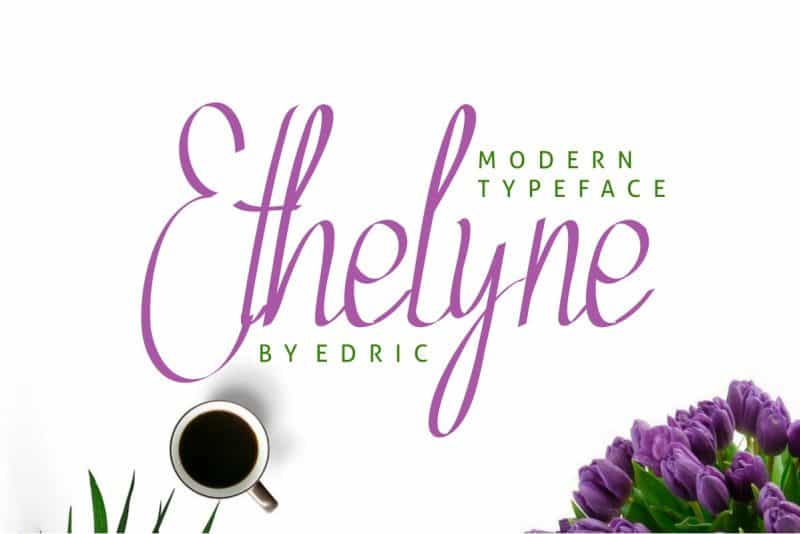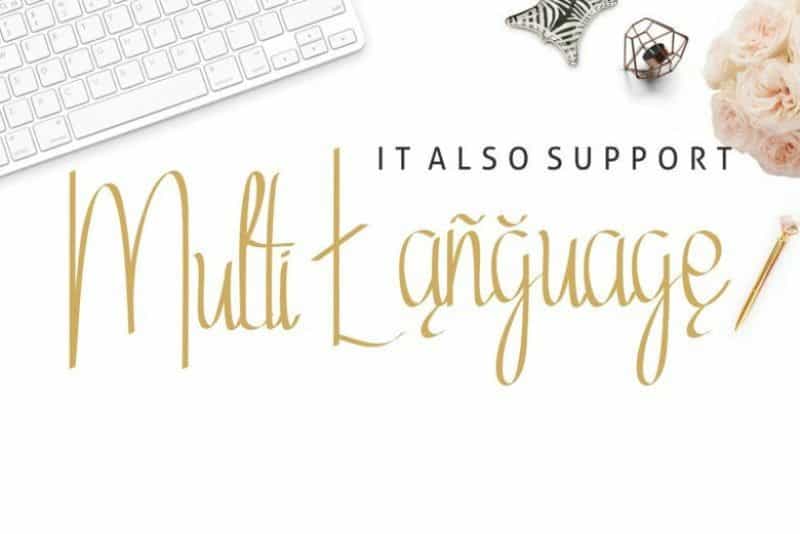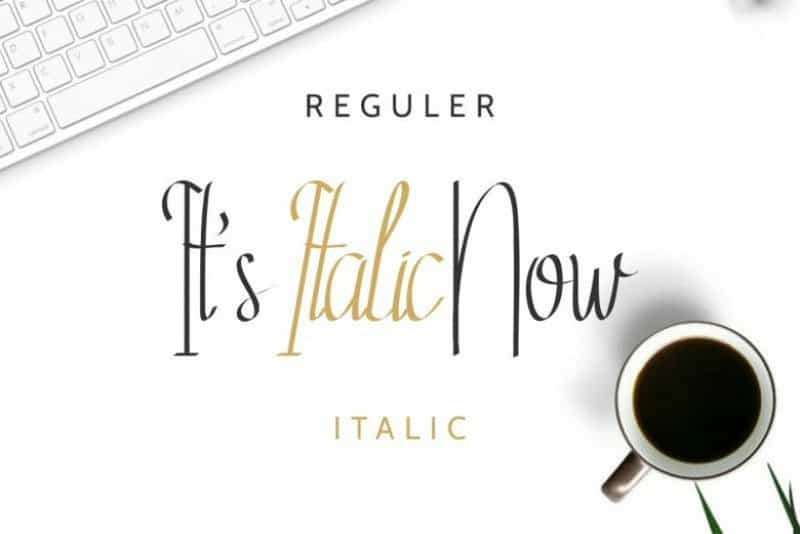
Discover Ethelyne Script Font, part of the Calligraphy collection—a versatile and unique font perfect for adding a personal touch to your projects. Download it for free and enjoy crafting designs with style, from invitations to social media posts. This font is available exclusively for personal use, giving you the freedom to create without limits. Unlock your creativity with Ethelyne Script Font today!
Hey there! Say hello to Ethelyne. Our creation! This modern script font features a handwriting style with stylish glyphs. It’s a choice, for branding, logos, stationery designs business cards, signage, flyers, brochures, banners. You name it!